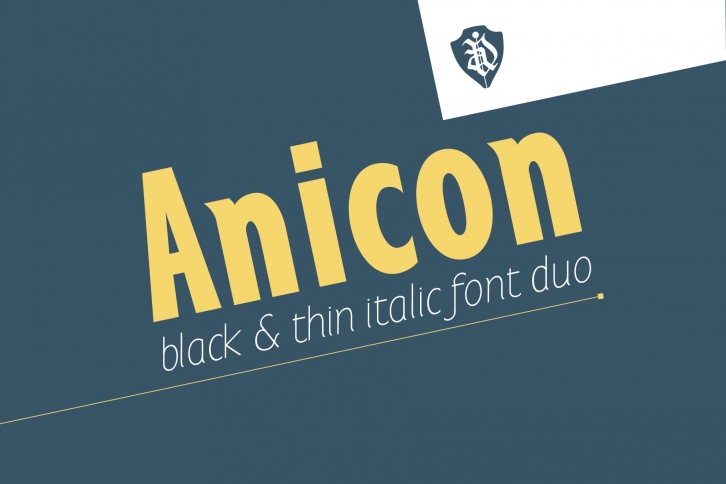
Anicon Black&Thin italic is a trendy and unique font with an authentic style. It was designed by NREY and it's a great choice for creative people who need such a font. It was released on March 10, 2020 and the file size is 11.69 MB. Anicon Black&Thin italic will add an organic vibe to any design idea!